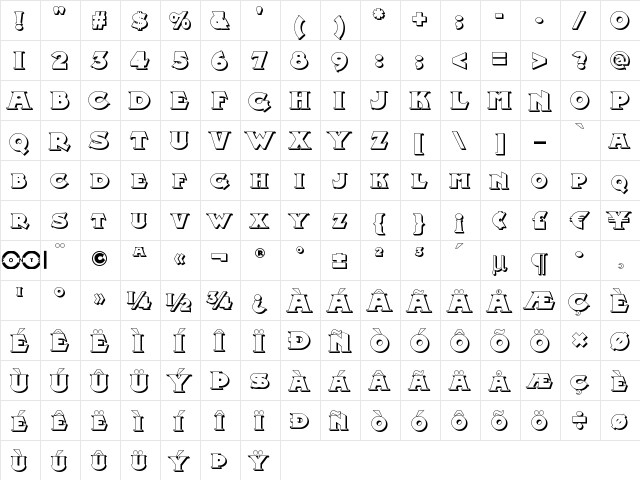
Midland Rail Shadow NF Regular
Design Context for Midland Rail Shadow NF Typeface
Midland Rail Shadow NF is built around its visual character rather than neutral utility — its distinctive forms are designed to make an impression at display sizes.
Font Pairing: Pair with a clean neutral sans-serif for body copy to let Midland Rail Shadow NF's character lead without overwhelming the composition.
Pro Tip: Use Midland Rail Shadow NF exclusively at display sizes — it was designed to be seen, not read at length. Let a neutral companion handle body copy.